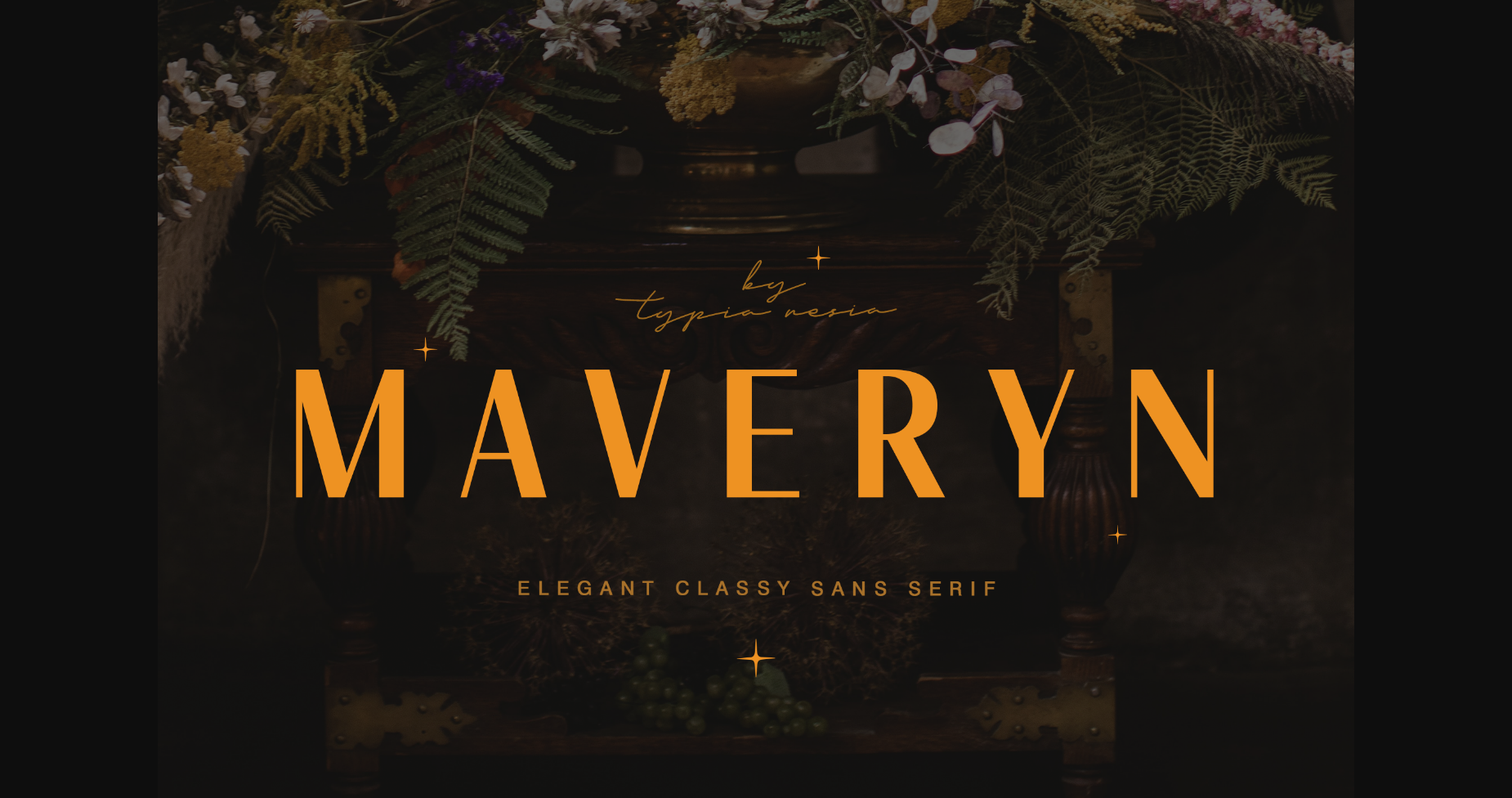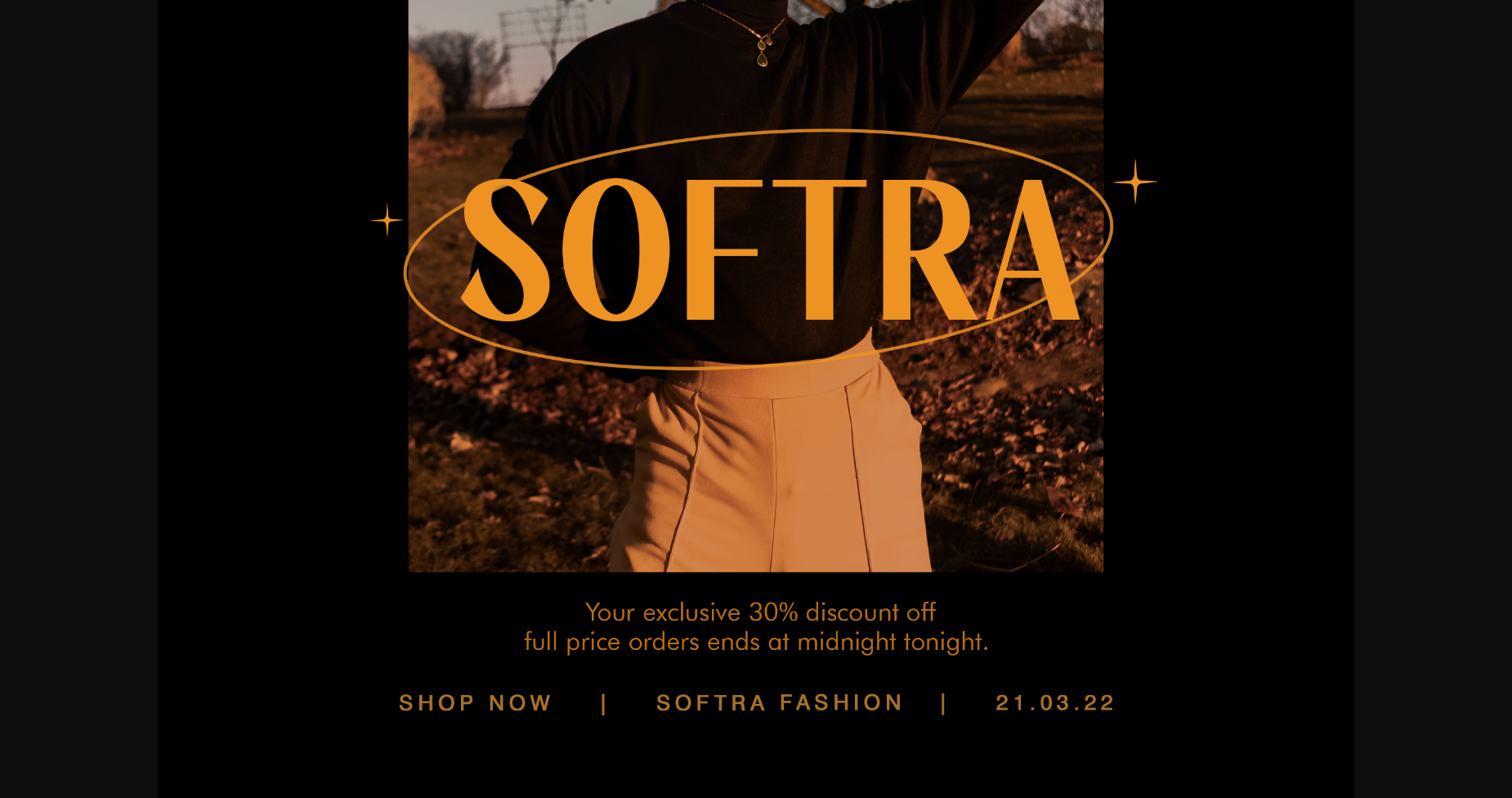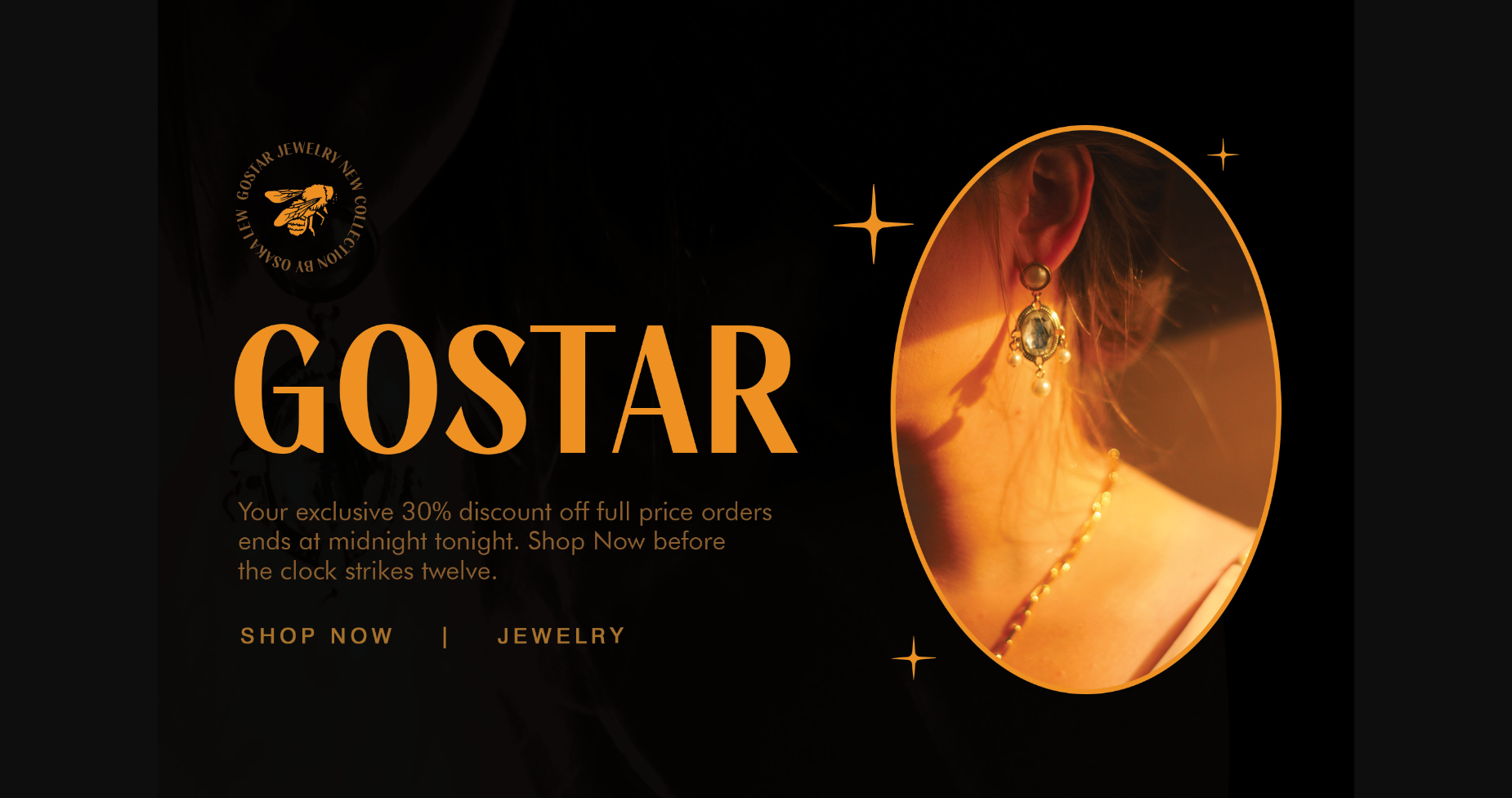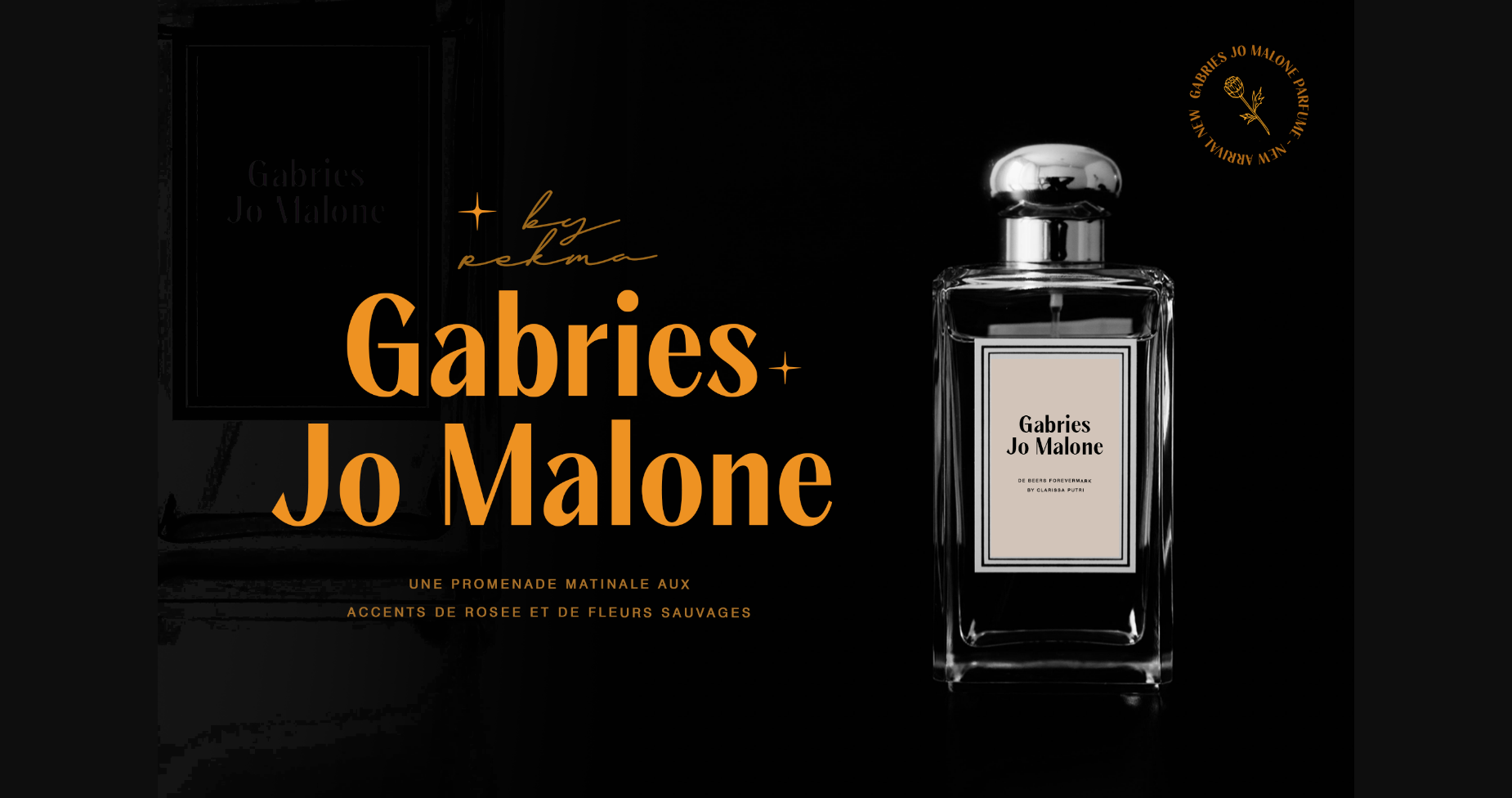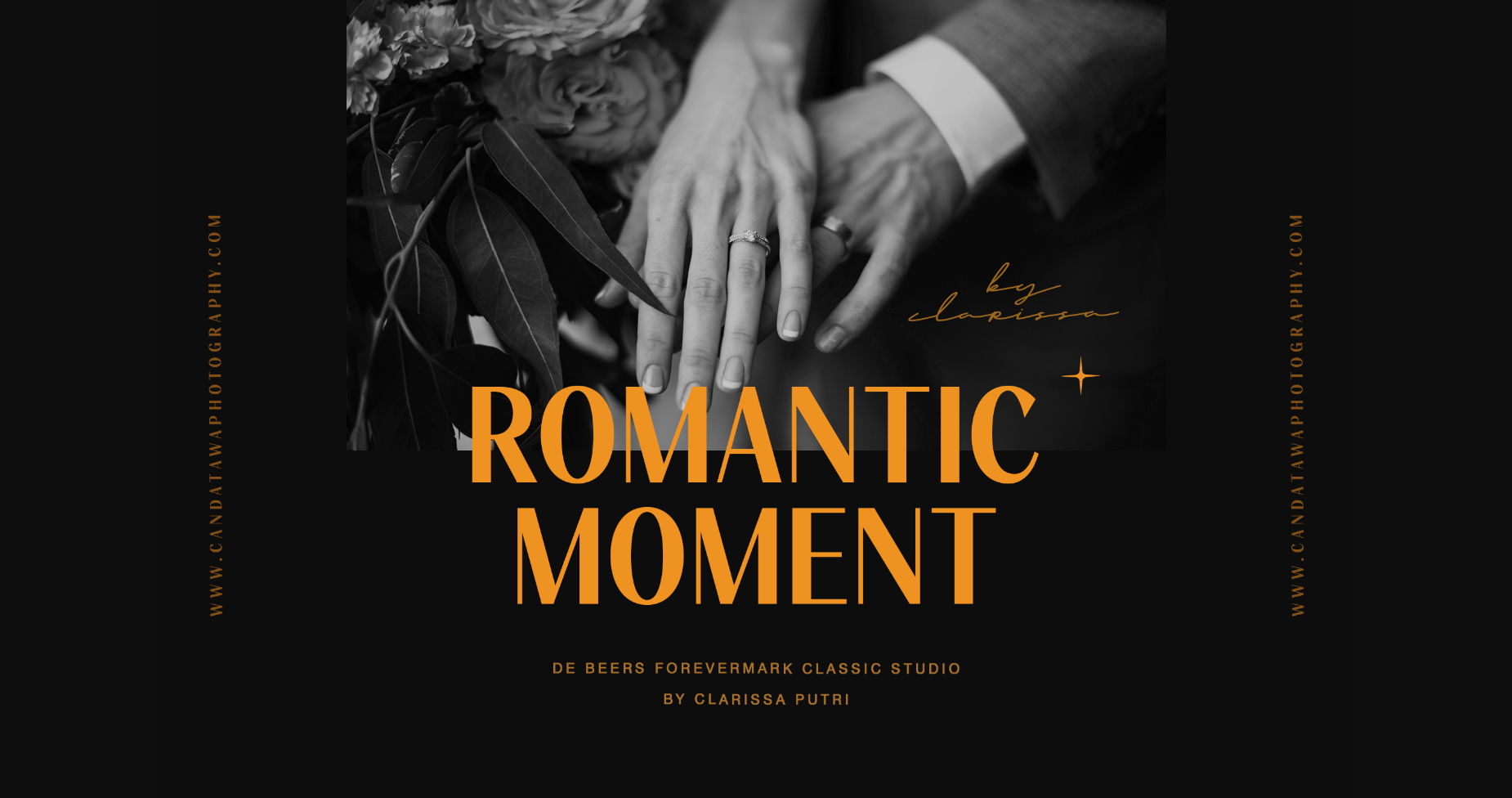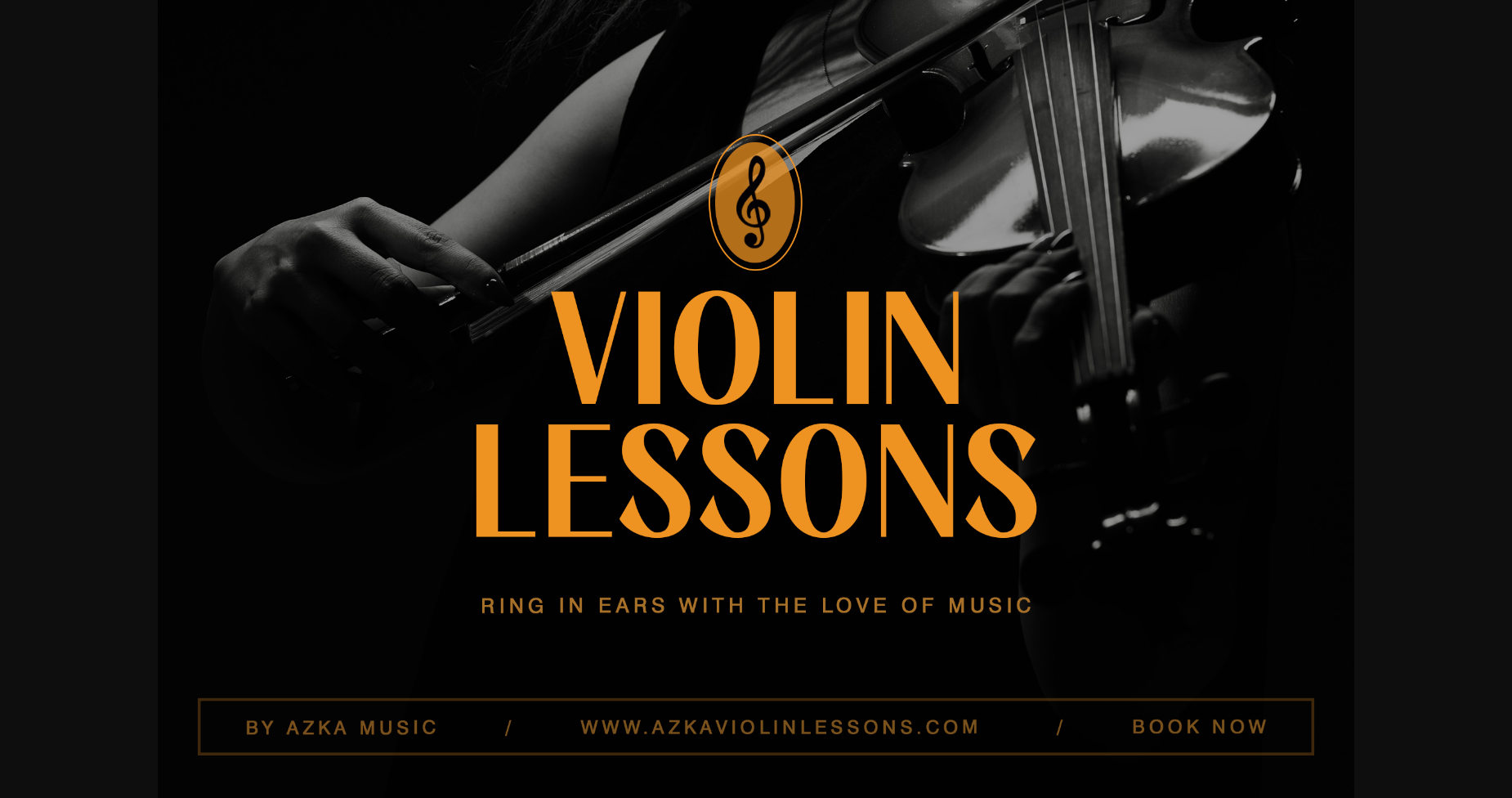
About Maveryn Font
Maveryn is a modern and elegant contrast sans-serif font that exudes classic beauty and sophistication. With its clean and refined design, this font is perfect for various applications, including wedding invitations, branding, logos, editorial designs, and more.